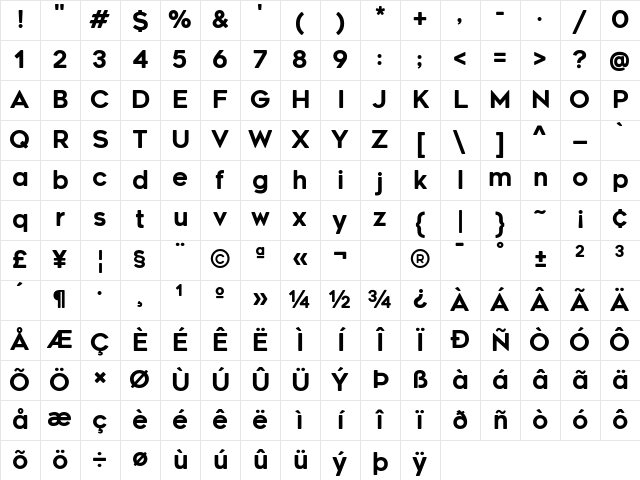
Renogare Soft Regular
Foundry: Deepak Singh Dogra
Designer: Deepak Singh Dogra
Year: 2016
Complete Renogare Soft Regular glyph index. Displaying only characters natively supported by Renogare Soft Regular font.
Design Context for Renogare Soft
Renogare Soft is a composed and adaptable typeface that performs quietly and consistently across a wide range of design contexts.
Who designed the Renogare Soft Regular font?